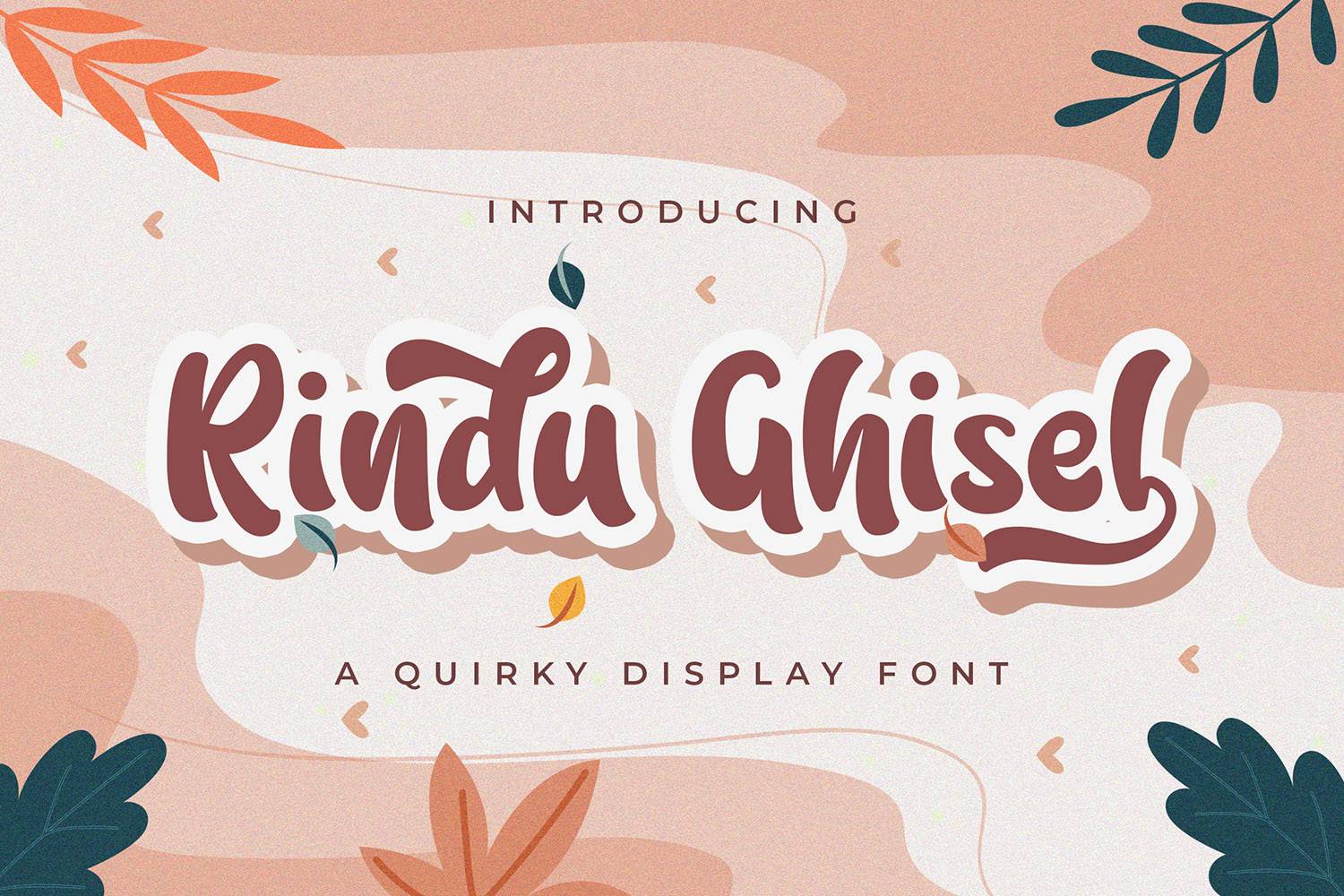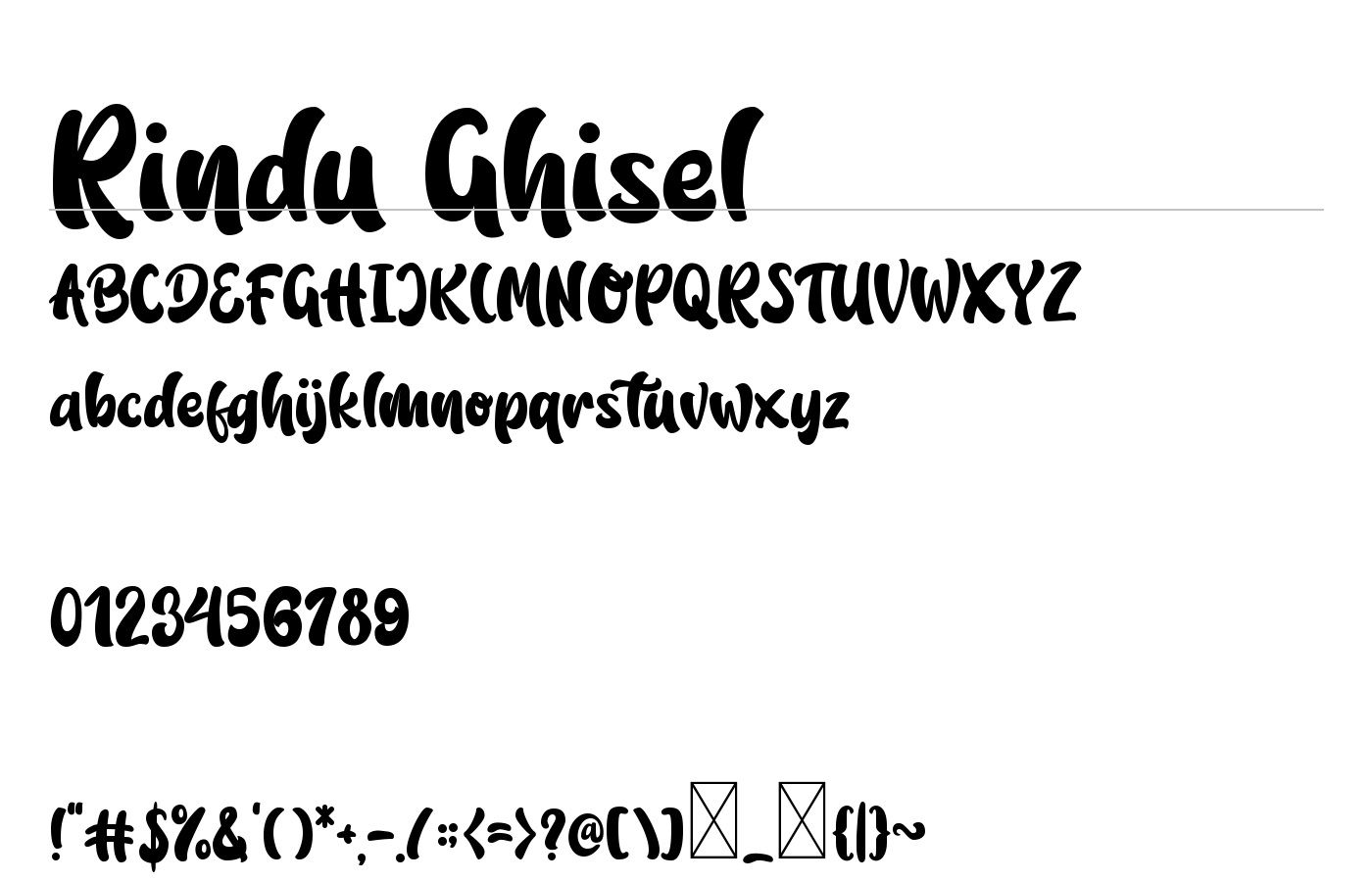
Rindu Ghisel is a bold, playful script font with a hand-drawn feel, characterized by its thick, rounded strokes and lively letterforms. This font conveys a warm and friendly personality, making it ideal for creative branding, casual invitations, and eye-catching headlines where a personal, approachable touch is desired. Its informal style shines best in projects that aim to communicate fun, creativity, and friendliness.
Rindu Ghisel Font
About Rindu Ghisel Font
| Font family | Rindu Ghisel Font |